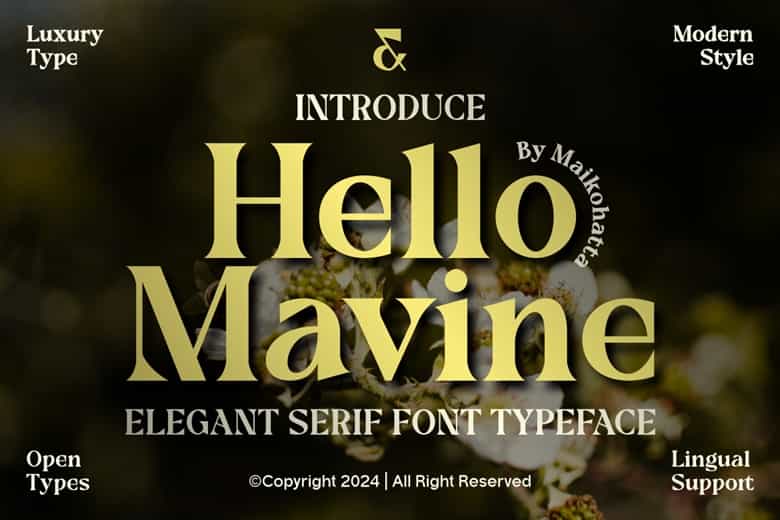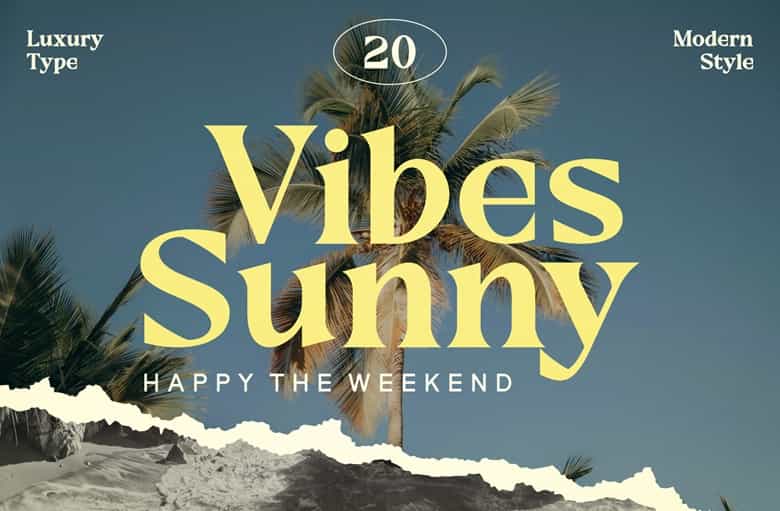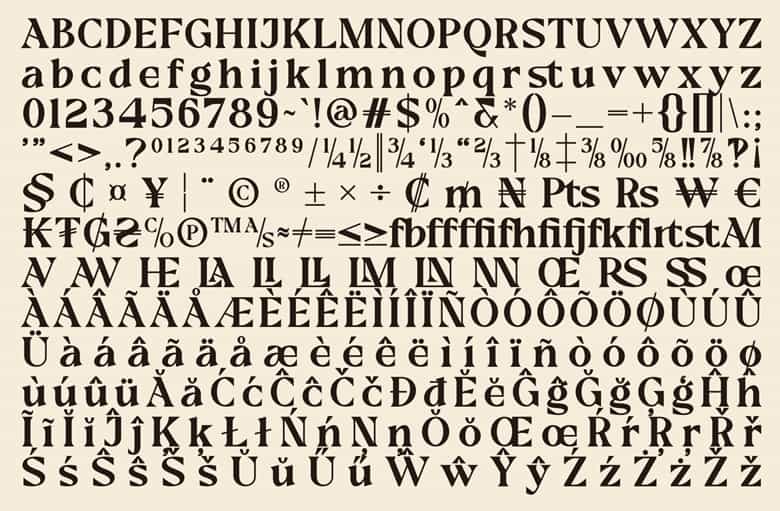
Hello Mavine is a serif font with certain features that give the sensation of sophistication, stiffness and luxury. This font has features such as thin/thick alignment of the lines, curves and roundings, and straight sided because of clean and elegant serif. In both cases the clarity of the images and the definitive lines of each character provide an exquisite look and feel.